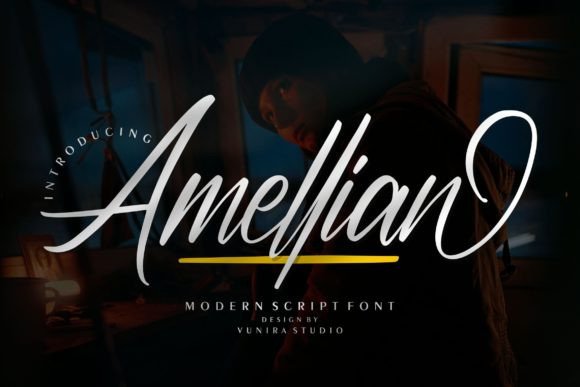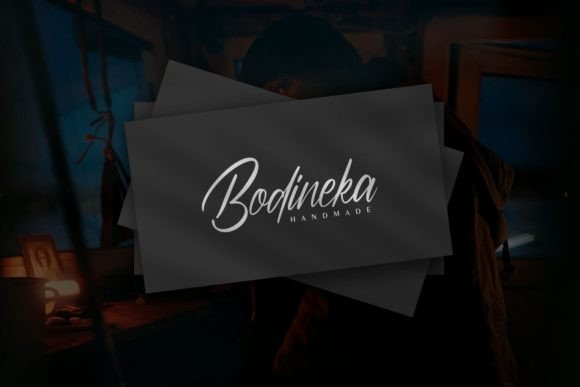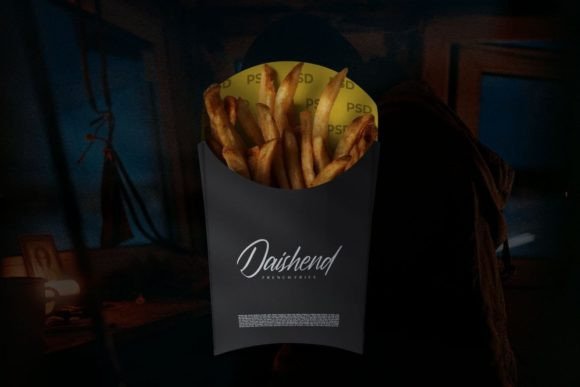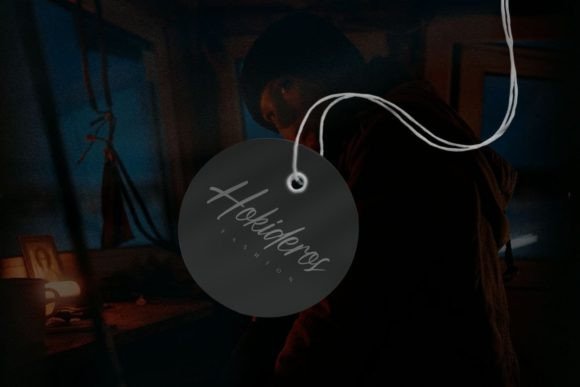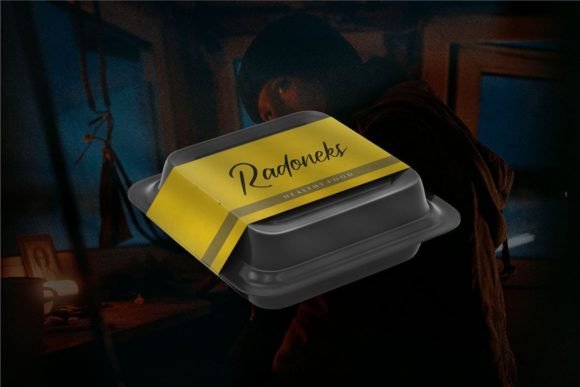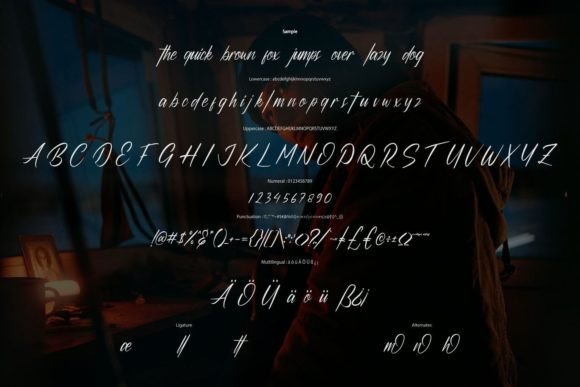
Amellian Font
About Amellian Font
“Amellian” is a font that embodies elegance with its contemporary script style, drawing inspiration from timeless classic calligraphy. Its balanced and varied design, not too thin and not too thick, creates a harmonious visual experience, making it an excellent choice to enhance the beauty of your projects. Whether you’re working on branding, invitations, packaging, signage, or any other creative endeavor, “Amellian” elevates the aesthetic appeal of your designs with its impeccable form and graceful charm.
The elegant and sophisticated qualities of “Amellian” make it ideal for designs that require a touch of refinement and style. Its well-crafted letterforms and smooth curves create a sense of grace, making it suitable for projects that demand a sense of timeless beauty. Whether used in logos, headings, or wedding invitations, this font adds a touch of luxury and elegance, ensuring that your designs exude a sense of high-quality craftsmanship.
In branding, “Amellian” imparts a sense of sophistication and exclusivity to the business. Its contemporary script style adds a touch of professionalism and creativity, making it suitable for upscale brands and businesses that want to convey a sense of premium quality. Whether used in logos, business cards, or promotional materials, this font enhances the brand’s visual identity, leaving a lasting impression on clients and customers.
For invitations and event stationery, “Amellian” adds a touch of romance and refinement. Its flowing script and impeccable form create a sense of charm and elegance, making it perfect for wedding invitations, formal events, or upscale gatherings. Whether used for invitation cards, menus, or place cards, this font enhances the overall sophistication of the event, making it a memorable and enchanting experience for attendees.
In packaging and product design, “Amellian” elevates the overall aesthetics of products. Its elegant script style adds a touch of luxury to labels and packaging, making products appear more premium and desirable. Whether used for cosmetics, perfumes, or gourmet products, this font enhances the brand image, making the products stand out on the shelves and appeal to discerning consumers.
The availability of glyphs and ligatures, thanks to the PUA encoding, enhances the font’s versatility. Designers can easily access a wide range of alternate characters and decorative elements, allowing for creative freedom and customization. These additional glyphs and ligatures enable you to create unique and personalized designs, adding a bespoke touch to your projects and enhancing their individuality.
In summary, “Amellian” is not just a font; it’s a statement of elegance and sophistication. Its contemporary script style, impeccable form, and PUA encoding make it a valuable asset for various creative projects. By incorporating “Amellian” into your designs, you infuse them with a sense of timeless beauty and refinement, ensuring that your projects are not just visually appealing but also exude an aura of understated luxury and class.